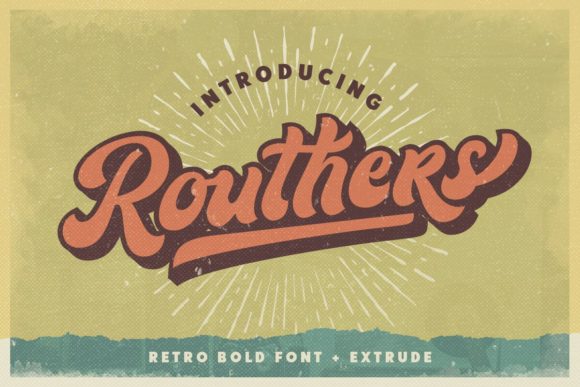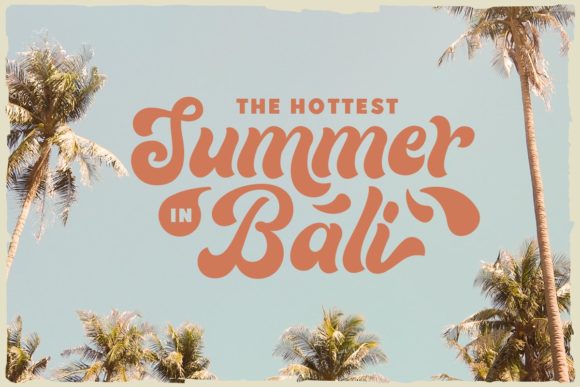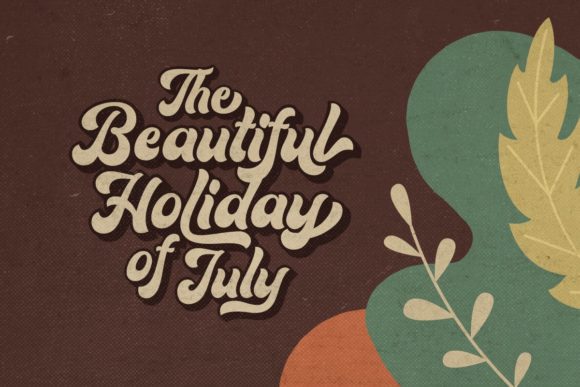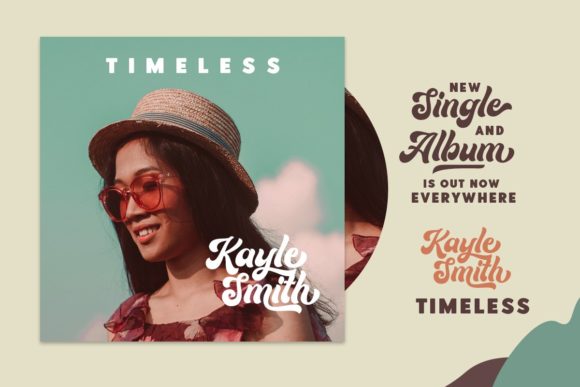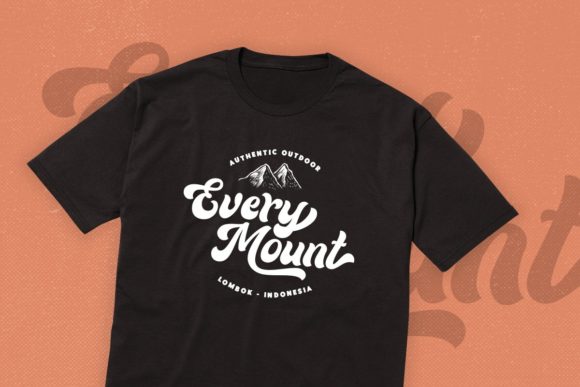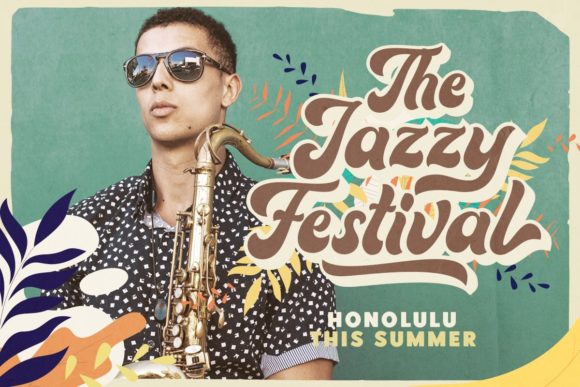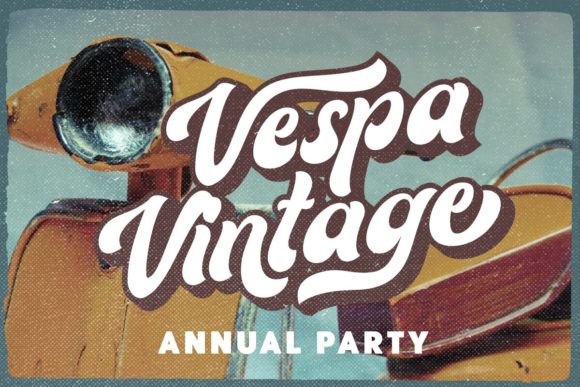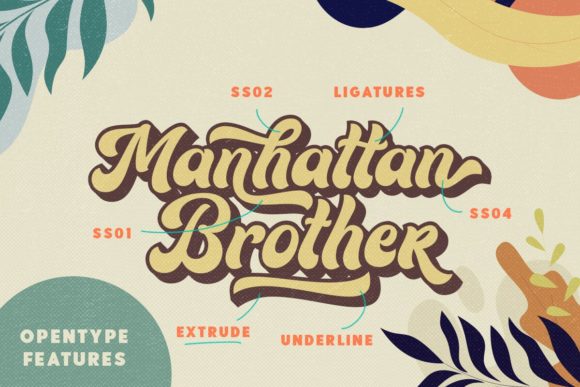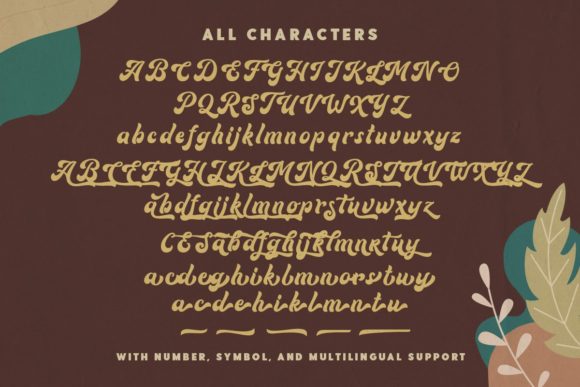
Routhers Font
About Routhers Font
Introducing Routhers Retro: The Bold and Retro Handwritten Font
Get ready to travel back in time with Routhers Retro, a bold and retro handwritten font that exudes an original and nostalgic vibe. This font’s unique look will captivate a wide range of crafty ideas, making it the perfect choice for letterheads, titles, stationery, and more.
Routhers Retro’s bold and retro style brings a sense of vintage charm and creativity to your text. Its strong letterforms and distinctive design make your words exude a captivating and nostalgic energy, perfect for adding a touch of originality to your designs.
As a font that boasts retro flair, Routhers Retro becomes the go-to choice for projects that demand a touch of old-school charm and craftiness. Its handwritten look ensures that your work resonates with an authentic and artistic vibe, giving your designs a unique and retro appeal.
Embrace the nostalgia of Routhers Retro as you embark on your creative journey. Let it be the font that enhances your crafty ideas, allowing you to create designs that transport your audience to a bygone era.
As you explore the possibilities of Routhers Retro, you’ll find it to be a font that appeals to a wide range of design projects. Its retro style transforms your work, ensuring that your letterheads, titles, and stationery, stand out with a touch of vintage charm.
So, add Routhers Retro to your font collection and notice how it elevates your crafty ideas. Embrace its bold and retro handwritten style and create projects that capture the essence of the past while adding a modern twist. With Routhers Retro as your font of choice, your creations will resonate with a sense of nostalgia and creativity, captivating your audience and leaving a lasting impression. Embrace the retro charm of Routhers Retro and create designs that are truly original and irresistibly nostalgic!